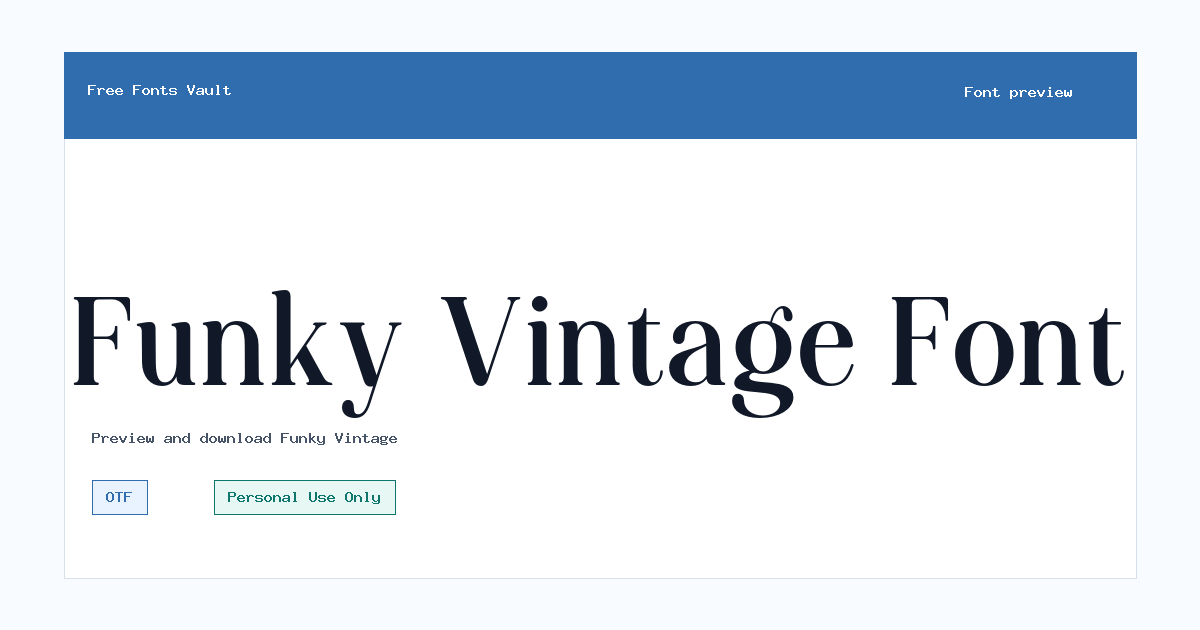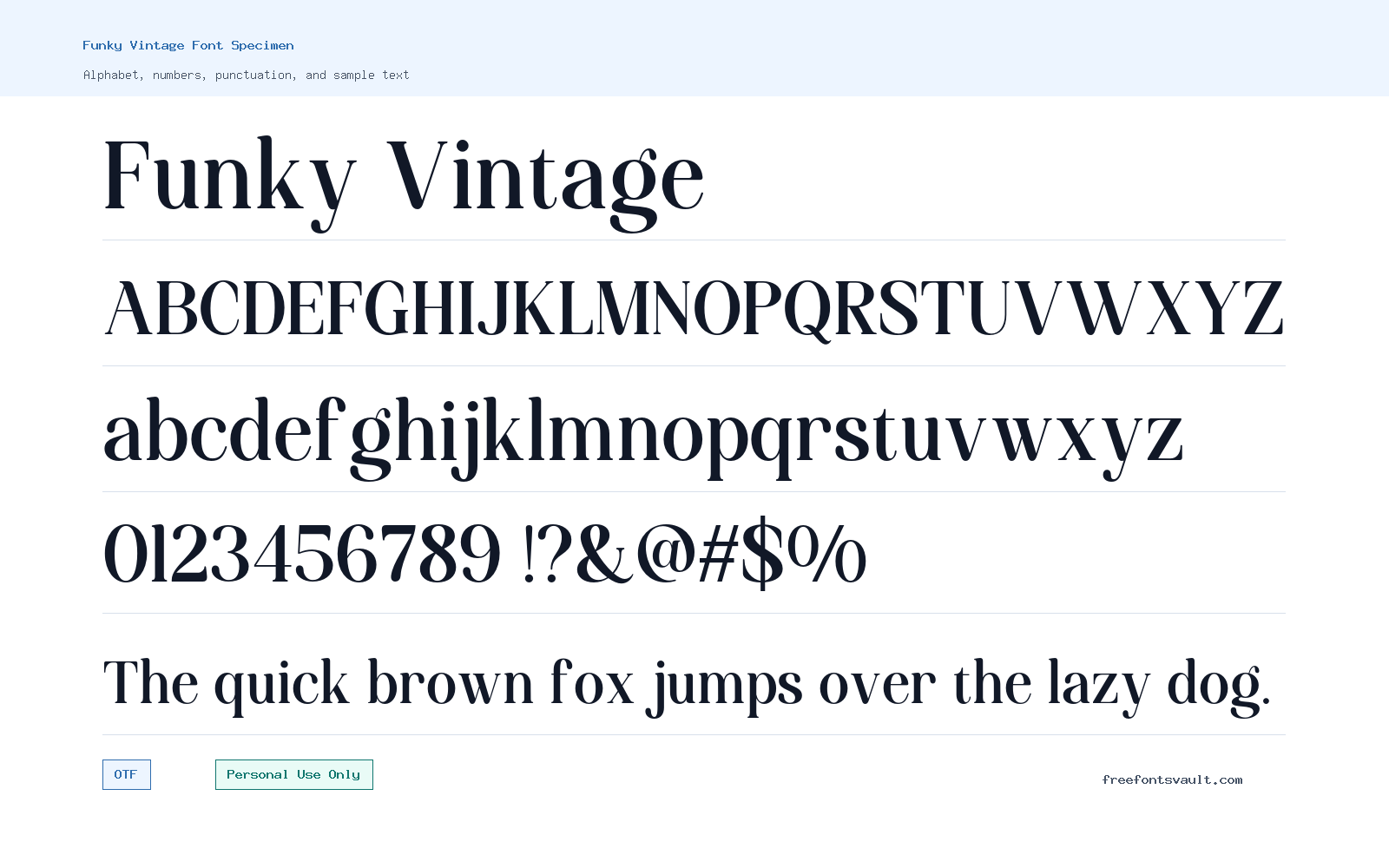
Funky Vintage
- Designer Bakhrudin Ja'far
Funky Vintage is a retro serif display font with a playful old-style mood. It is best suited for short, eye-catching text where personality matters more than long-form reading.
About Funky Vintage Font
Funky Vintage has the kind of serif look that works well when you want a design to feel warm, nostalgic, and a little decorative. Its regular OTF file gives you a single main style to test in the preview, so it is a good choice for trying headline ideas, title layouts, badge text, and short branding concepts. Because the family name points clearly toward a vintage direction, it makes the most sense in designs that need a retro or hand-crafted feel rather than a clean modern system-font look.
Use Funky Vintage for display text first. Try it in words with mixed letter shapes, such as product names, event titles, coffee labels, menu headers, or poster headlines, and check how the spacing feels at the size you plan to use. Decorative serif fonts can lose clarity when they are used too small, so avoid relying on it for dense paragraphs, legal copy, or long mobile text. Pair it with a simple sans serif or a quiet text serif for descriptions, prices, captions, and body copy so the main title can stay expressive without making the full design harder to read.
- Retro serif display style suited to short titles, labels, posters, and decorative headings
- Normal style with 400 weight, useful as the main headline cut rather than a multi-weight text family
- Works best when paired with a simpler companion font for body text and small supporting details
- Vintage-style posters and event titles
- Logo drafts, badges, and product label concepts
- Cafe, bakery, boutique, and handmade-brand mockups
- Social graphics, quote images, and short promotional headlines
- Packaging concepts where a warm serif title is needed
The designer is listed as Bakhrudin Ja'far, with Roomspace Creative Lab given as the designer website.
What kind of projects is Funky Vintage good for?
It is best for short display text such as posters, labels, badge designs, logo drafts, packaging mockups, and social media titles with a retro serif feel.
Can I use Funky Vintage for body text?
It is better for headlines and short phrases. For paragraphs or small text, pair it with a simpler, highly readable font.
Who designed Funky Vintage?
The designer is listed as Bakhrudin Ja'far, and the related designer website is Roomspace Creative Lab.